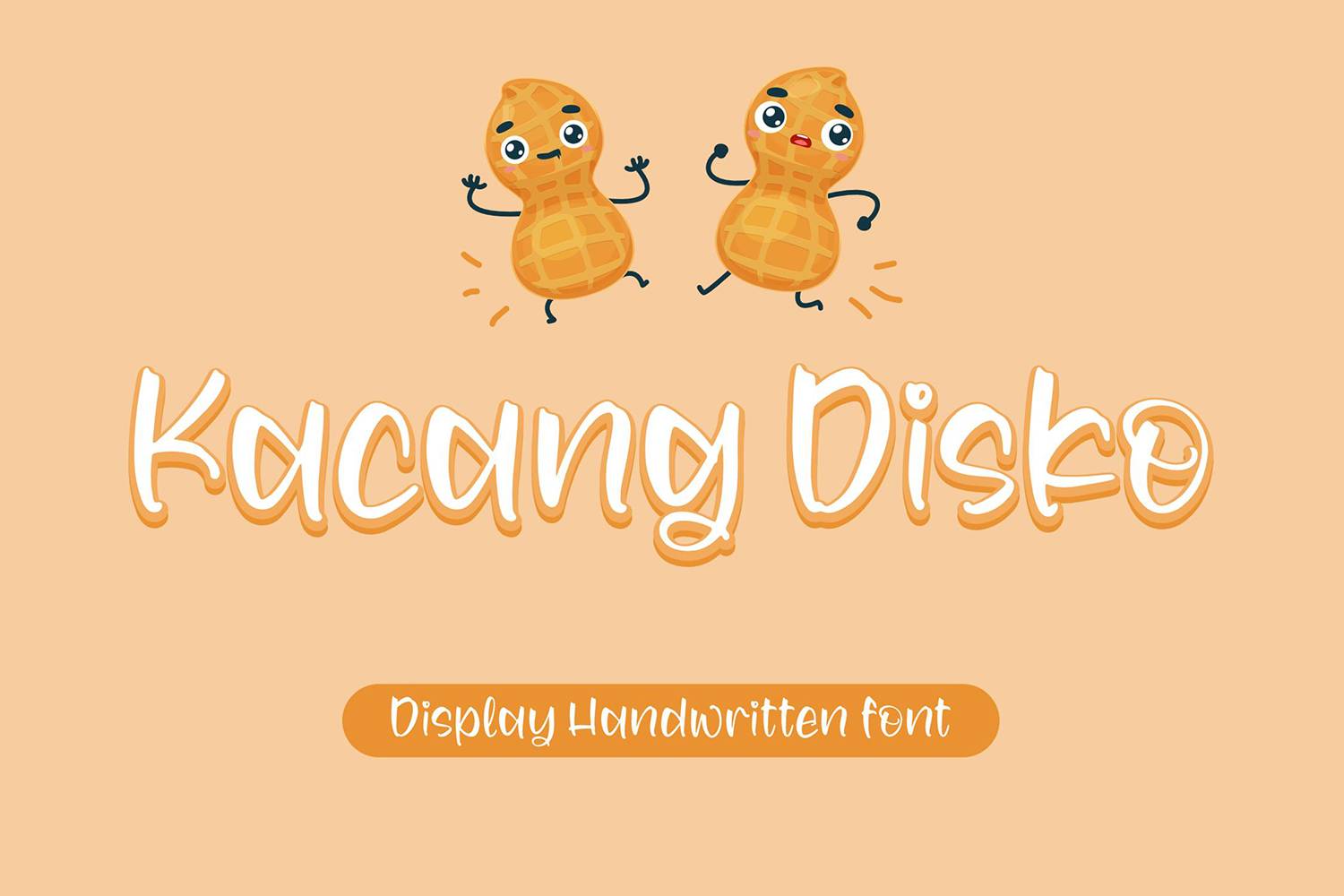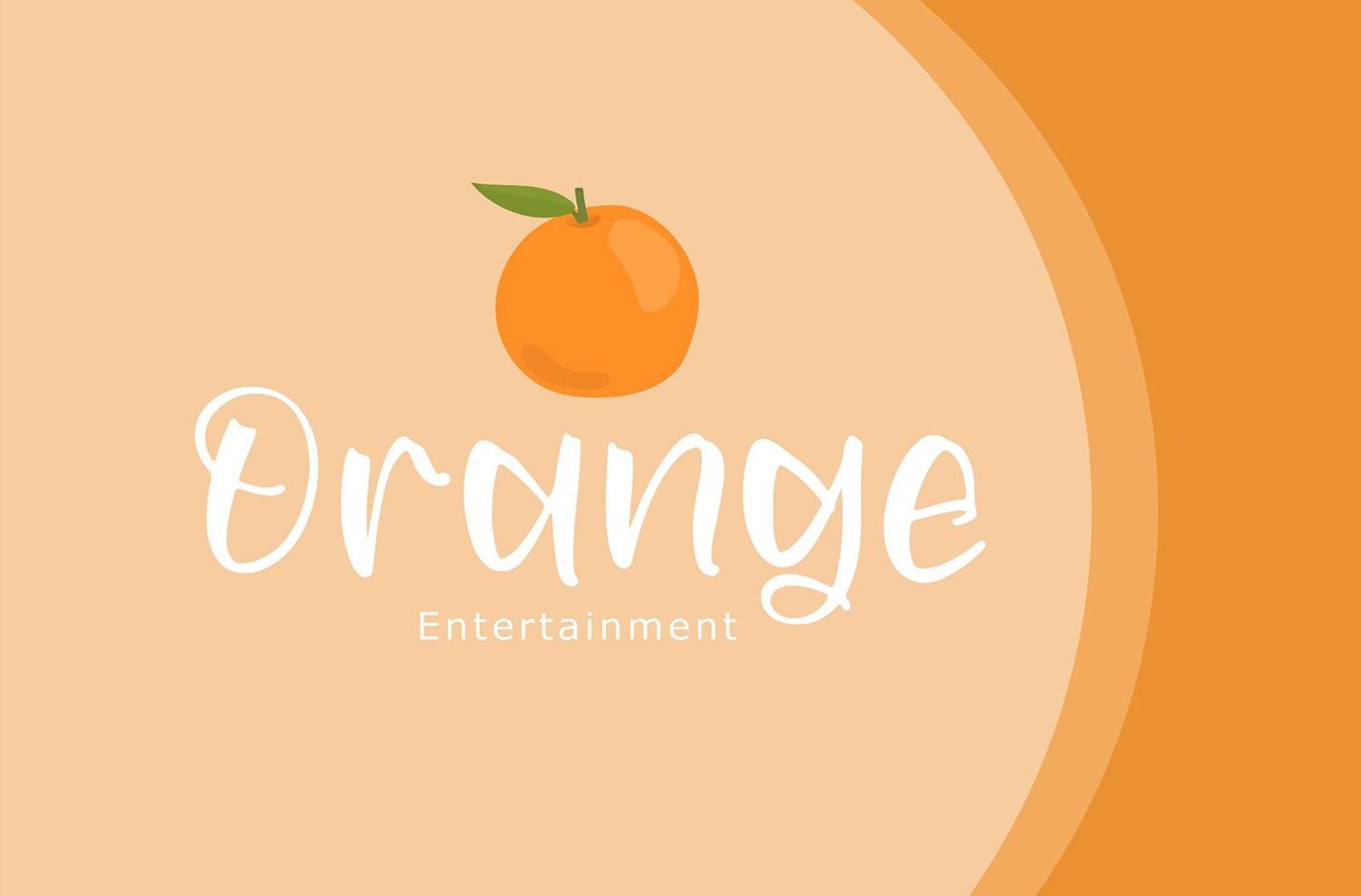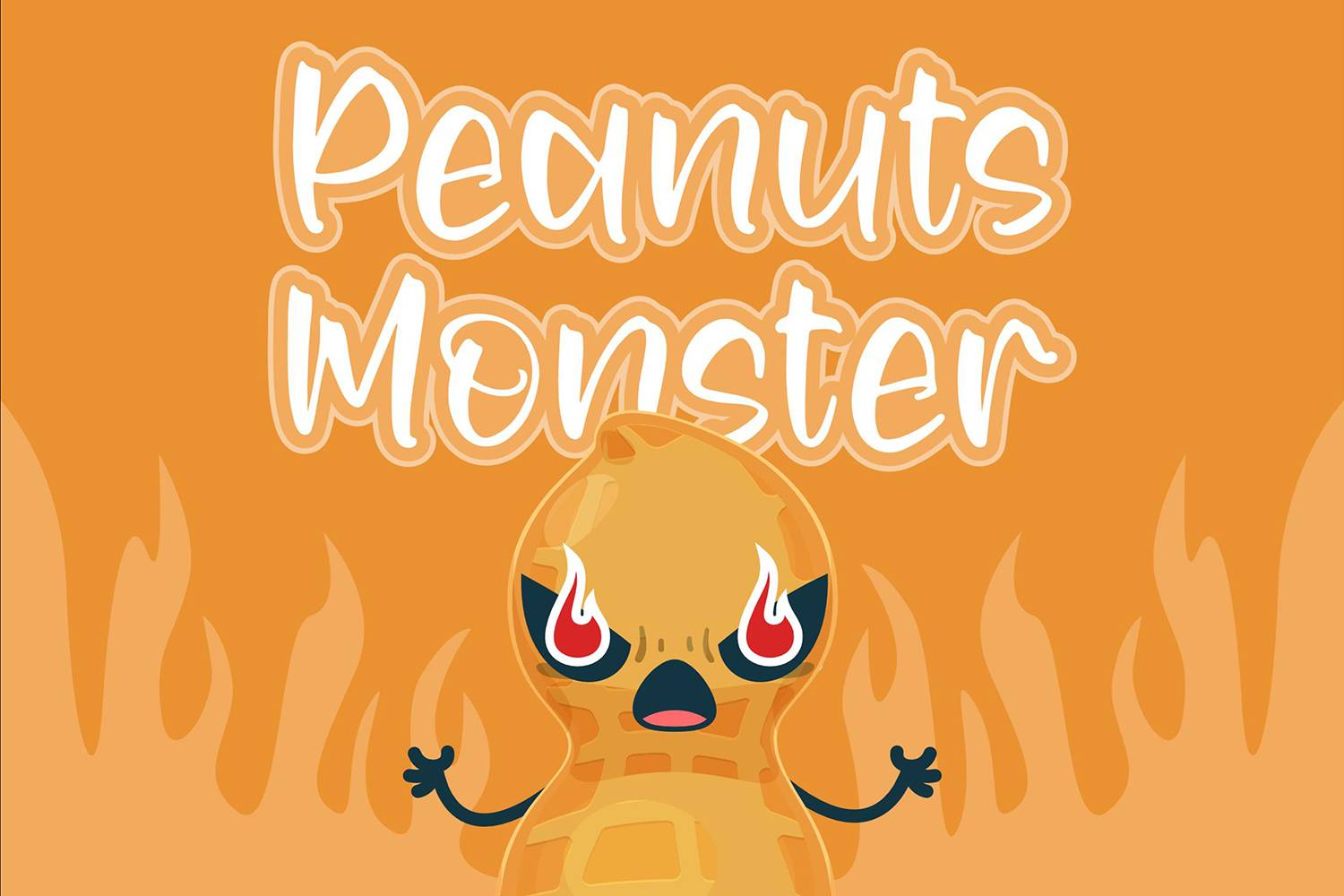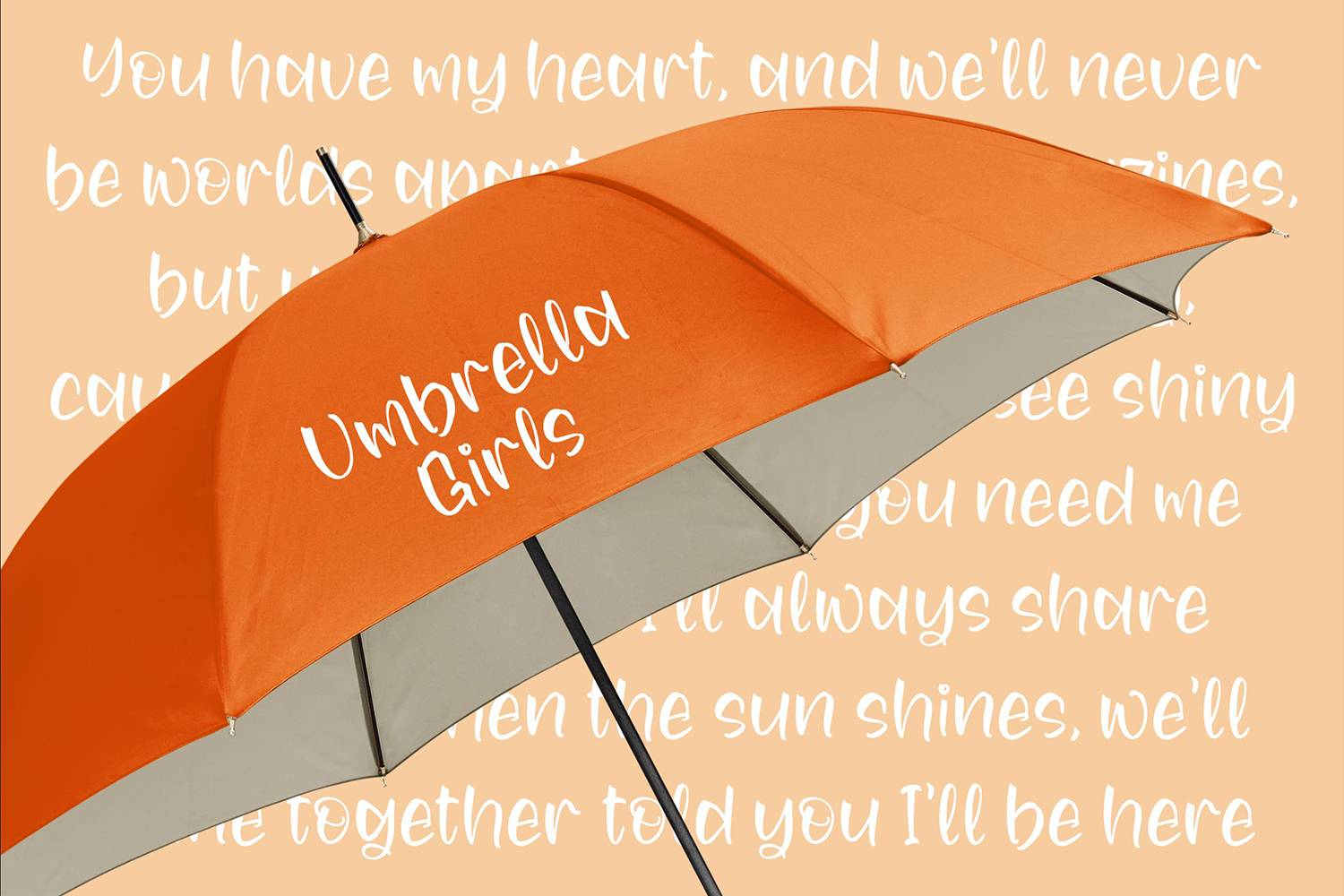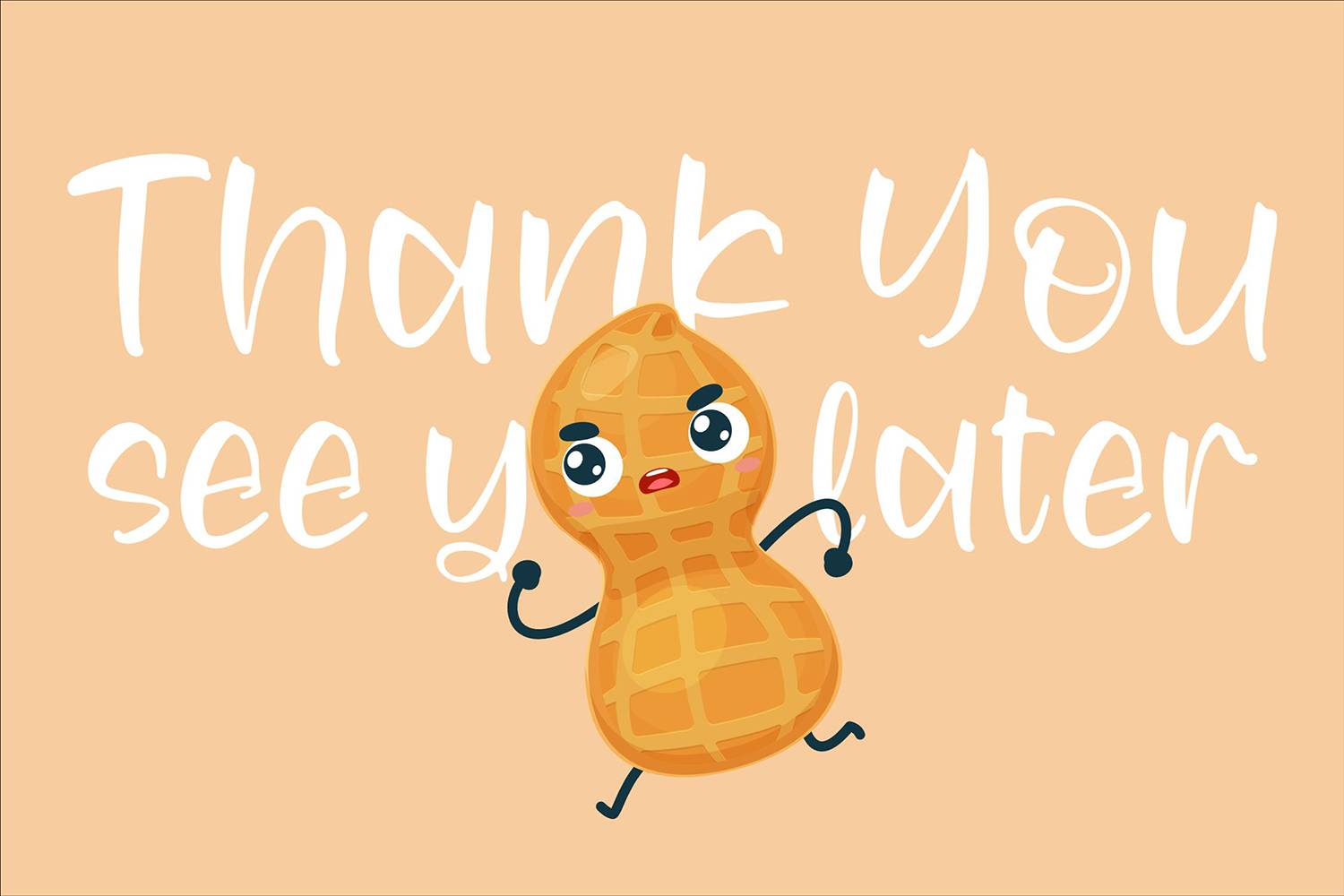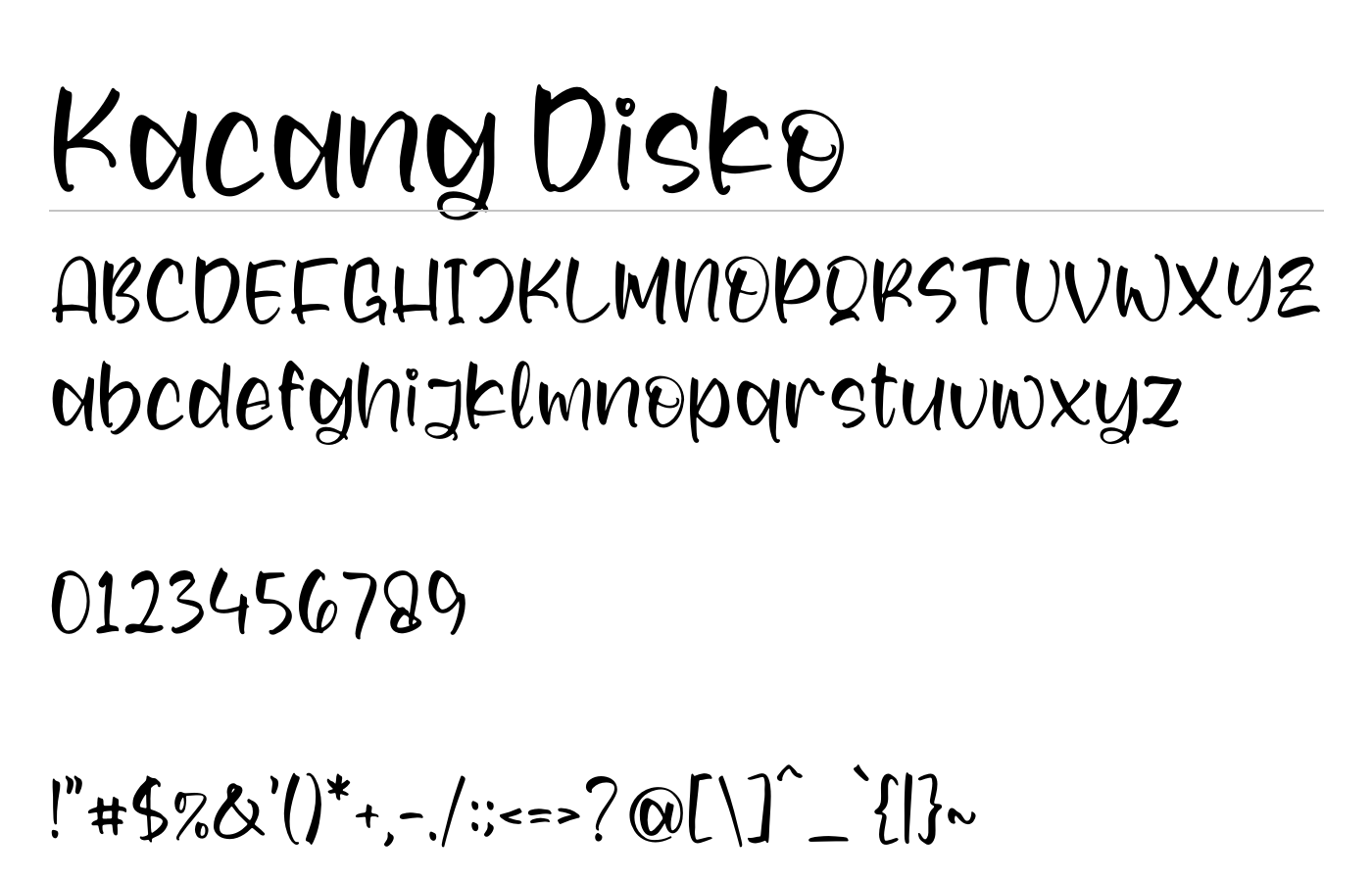
Kacang Disko is a playful handwritten font with a casual, energetic vibe, featuring irregular stroke widths and quirky letterforms that add a sense of fun and spontaneity. Its tall x-height and loose spacing make it easy to read while maintaining a relaxed, informal feel, ideal for creative and youthful branding, invitations, and editorial projects seeking a personal touch. This font works best where a lively, approachable style is needed to engage and entertain audiences.
Kacang Disko Font
About Kacang Disko Font